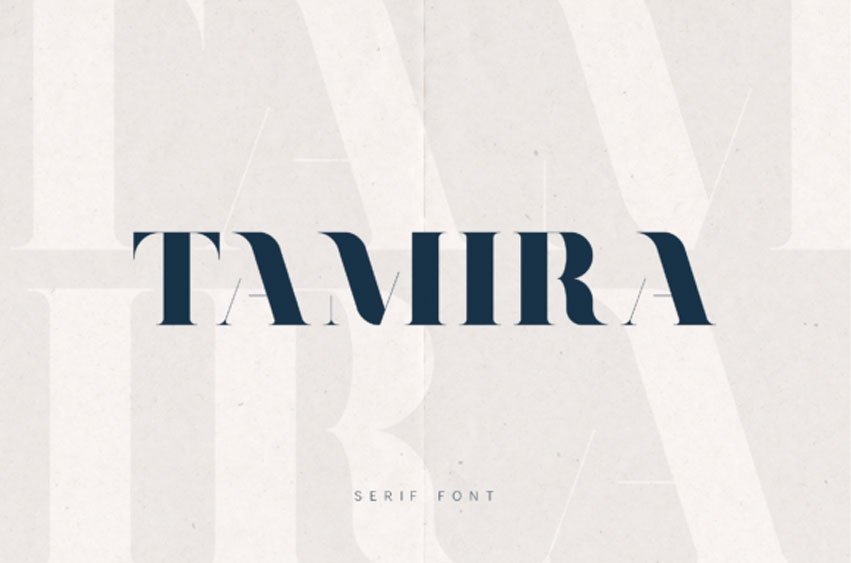
Tamira Font
Tamira Font Command the page with Tamira, a bold editorial serif engineered for prestige and impact.
Tamira masters the art of the “thick-and-thin” transition, featuring massive, authoritative stems paired with razor-sharp, delicate serifs. This typeface reimagines classic typography through a modern lens, offering a structural elegance that is perfect for high-end fashion and luxury branding.
Best Used For: Fashion magazine mastheads, luxury fragrance packaging, upscale event invitations, and cinematic titles.